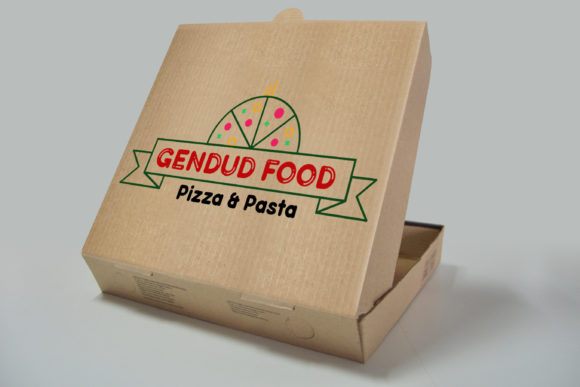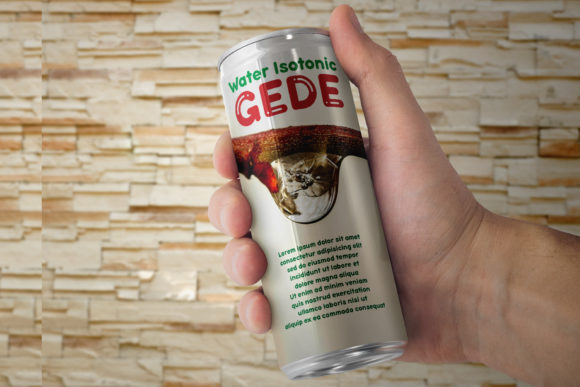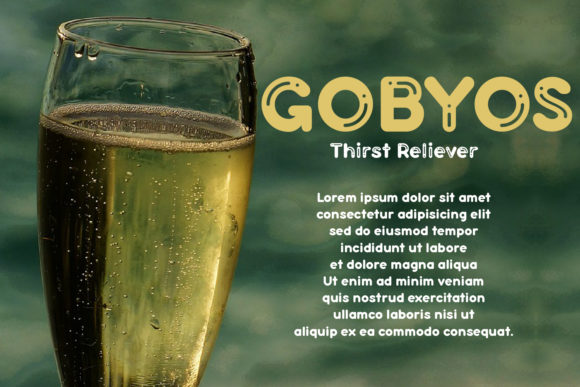
Bamboo Font: The Ultimate Sans Serif for Creative Projects
Bamboo is a bold and simple sans serif font that has been making waves in the design community. Its clean and modern aesthetic makes it an incredibly versatile font that can be matched to an incredibly large set of projects. Whether you’re a designer, crafter, or DIY enthusiast, Bamboo Font is a must-have in your font library. In this article, we’ll dive into the world of Bamboo Font and explore its features, benefits, and uses.
What is Bamboo Font?
Bamboo Font is a sans serif font that exudes simplicity and elegance. Its bold and clean lines make it perfect for headlines, titles, and short texts. The font is designed to be highly legible, even at small sizes, making it ideal for use in a variety of applications, from digital media to print materials.
Key Features of Bamboo Font
- Bold and Simple: Bamboo Font features bold and simple lettering that makes it perfect for creating eye-catching headlines and titles.
- Clean Lines: The font’s clean lines and minimalist aesthetic make it highly legible and versatile.
- Sans Serif: Bamboo Font is a sans serif font, which means it doesn’t have any decorative flourishes or tails.
- Highly Legible: The font is designed to be highly legible, even at small sizes, making it perfect for use in a variety of applications.
Benefits of Using Bamboo Font
Bamboo Font offers a range of benefits for designers, crafters, and DIY enthusiasts. Here are just a few:
- Versatility: Bamboo Font is incredibly versatile and can be used in a wide range of projects, from digital media to print materials.
- Ease of Use: The font is easy to read and understand, making it perfect for use in instructional materials, such as tutorials and guides.
- Modern Aesthetic: Bamboo Font’s clean and modern aesthetic makes it perfect for use in contemporary designs and projects.
- Time-Saving: With Bamboo Font, you can create professional-looking designs and projects in no time, saving you time and effort.
Uses of Bamboo Font
Bamboo Font can be used in a wide range of projects, including:
- Digital Media: Use Bamboo Font in your digital media projects, such as social media graphics, videos, and presentations.
- Print Materials: Bamboo Font is perfect for use in print materials, such as brochures, flyers, and posters.
- Crafting: Use Bamboo Font in your crafting projects, such as handmade cards, gift tags, and scrapbooking.
- DIY Projects: Bamboo Font is perfect for use in DIY projects, such as making signs, labels, and other decorative items.
Tips for Using Bamboo Font
Here are some tips for using Bamboo Font in your projects:
- Use it Boldly: Bamboo Font is a bold font, so use it boldly to create eye-catching headlines and titles.
- Pair it with Other Fonts: Bamboo Font pairs well with other fonts, so experiment with different combinations to find the perfect look for your project.
- Experiment with Colors: Bamboo Font looks great in a variety of colors, so experiment with different colors to find the perfect look for your project.
Bamboo Font is a versatile and modern sans serif font that is perfect for use in a wide range of projects. Its bold and simple aesthetic makes it highly legible and easy to use, making it a must-have in your font library. Whether you’re a designer, crafter, or DIY enthusiast, Bamboo Font is sure to become a favorite. So why wait? Add Bamboo Font to your creative ideas and notice how it makes them stand out!